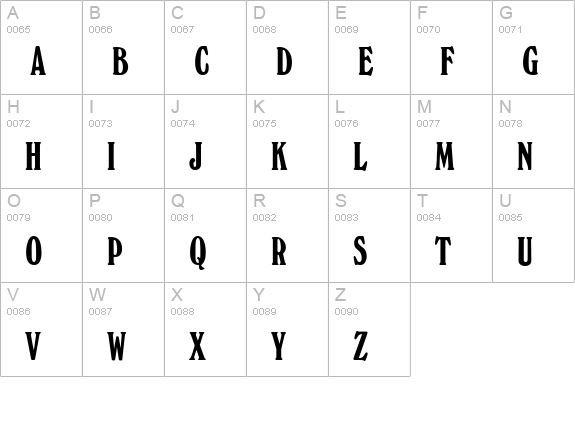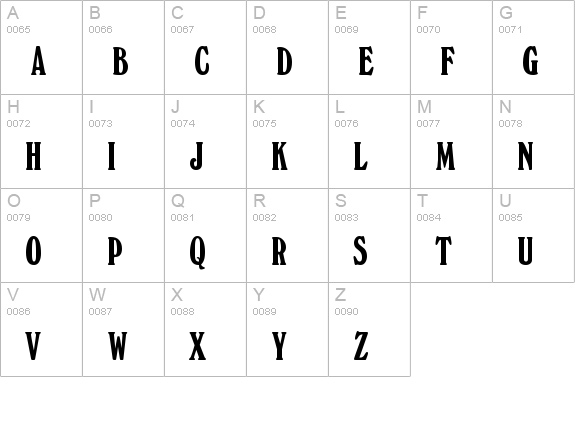
W730-Roman-Cd-Regular is the standard, neutral variant in the W730 typeface family \xE2\x80\x94 well suited to general body text, paragraphs, and standard typographic work.
The W730-Roman-Cd-Regular font is a classic and elegant typeface that exudes sophistication and versatility. With its clean lines and timeless appeal, this font is perfect for a wide range of design projects, from branding to editorial layouts. The balanced letterforms of W730-Roman-Cd-Regular make it easy to read and pleasant to the eye, making it a great choice for both print and digital applications. Best of all, W730-Roman-Cd-Regular is available for free download at FontsMarket.com. This means you can easily access this high-quality font without any cost, allowing you to elevate your design projects without breaking the bank. Whether you're a seasoned graphic designer or just starting out, W730-Roman-Cd-Regular is a valuable addition to your font library. Download it today and add a touch of sophistication to your designs.